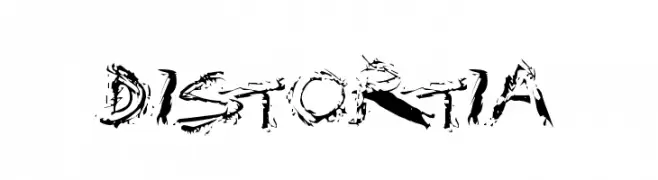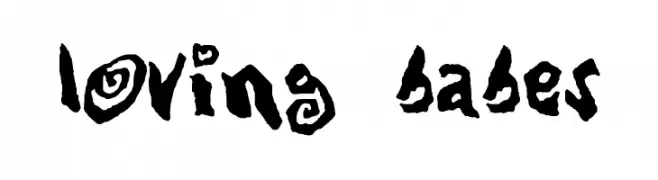
( Fonts by Dieter Schumacher )
A bold, edgy font with sharp, angular lines and a rebellious flair.
( Fonts by www.stimuleyefonts.com )
A bold, jagged font with a rebellious, distressed aesthetic.
( Fonts by Mr Fisk - Mike Larsson - fontorama.net )
A dynamic, rebellious font with irregular, jagged strokes and a hand-drawn feel.
( Fonts by Utopiafonts )
A distressed, grunge-style font with jagged edges and a chaotic appearance.
( Fonts by SDFonts - Ritzy )
A bold, playful font with hand-drawn, whimsical characters and quirky embellishments.